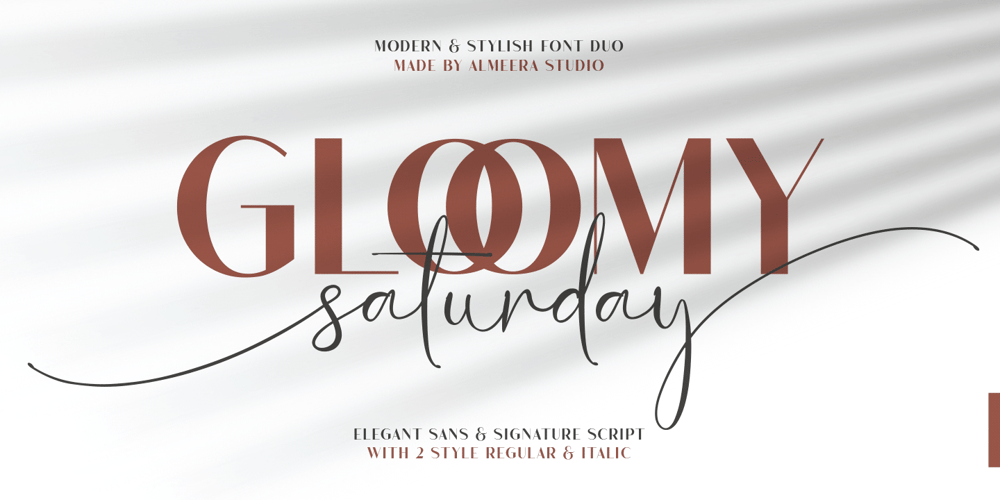
Gloomy Saturday Font Family was designed by Rinto Dwi Nugroho and published by Almeera Studio. Gloomy Saturday contains 4 styles and family package options. Introducing our new font Gloomy Saturday Font Duo. Gloomy Saturday is a luxurious paired typography, consisting of an elegant script & stylish Sans that is equipped with ligature.this is perfect for branding, logos, invitation, signature and more.Gloomy Saturday Features : Uppercase Lowercase Number Punctuation Multilingual PUA Encoded Opentype Ligatures Alternates PUA Encoded I really hope you enjoy it, and please don’t hesitate to drop me a message if you have any issues or queries. Thank You